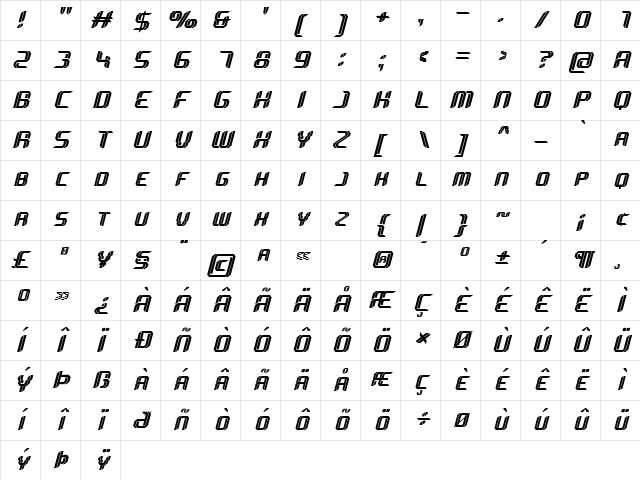
Sportive Italic Free Font
Sportive Italic
Designer: Candi Erwanto
Design Context for Sportive
Sportive brings high-energy athletic personality to the page - its confident, muscular forms are built for impact. The slanted form adds forward momentum and visual energy.
Pro Tip: Use Sportive in all-caps headlines where its athletic energy can fully express itself. Pair with a solid, simple sans for supporting text.